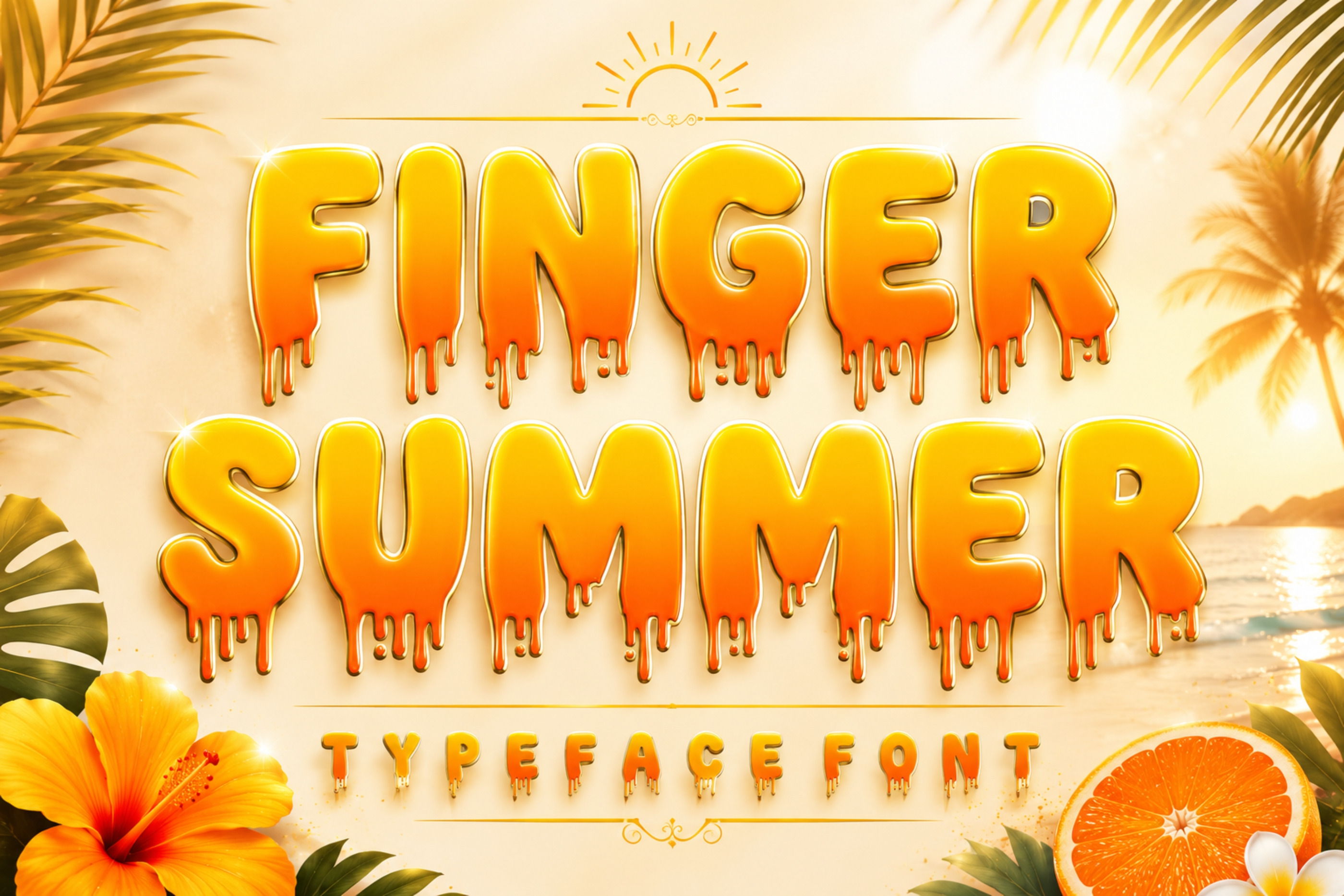
Finger Summer - Display font
Finger Summer is a bold and cheerful display font featuring glossy dripping characters inspired by sunshine, beaches, tropical fruits, and summer vibes. Its fun and eye-catching style makes it perfect for children’s designs, summer party invitations, beverage branding, posters, t-shirts, stickers, social media graphics, packaging, and more.
This font brings a fresh tropical atmosphere with smooth rounded shapes and playful dripping details that instantly stand out in any creative project.
Uppercase letters
Summer party invitations
Tropical and beach-themed designs
Kids and playful branding
Ice cream, juice, and beverage packaging
T-shirt and merchandise designs
Social media posts and thumbnails
Posters, flyers, and stickers
Add a splash of sunshine and fun to your designs with Finger Summer!